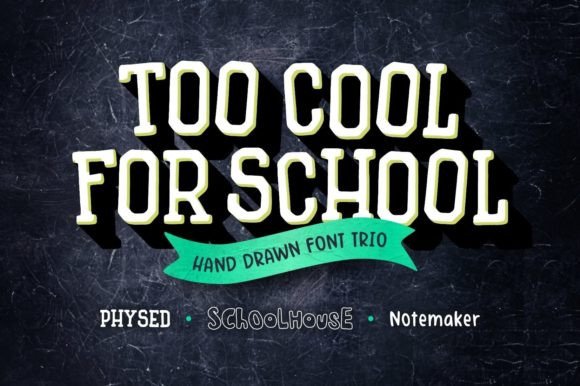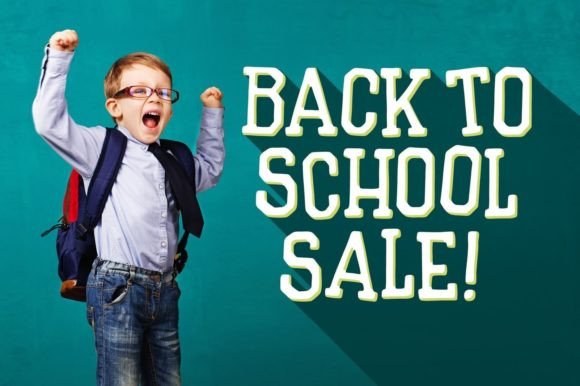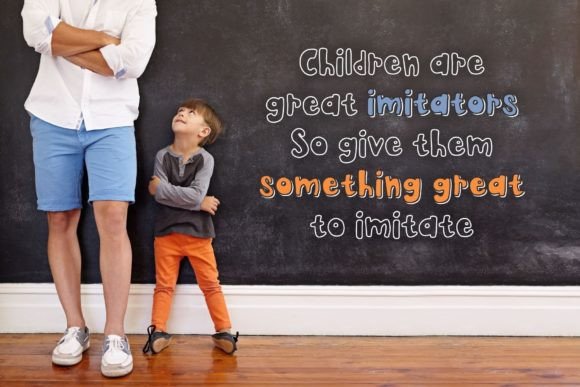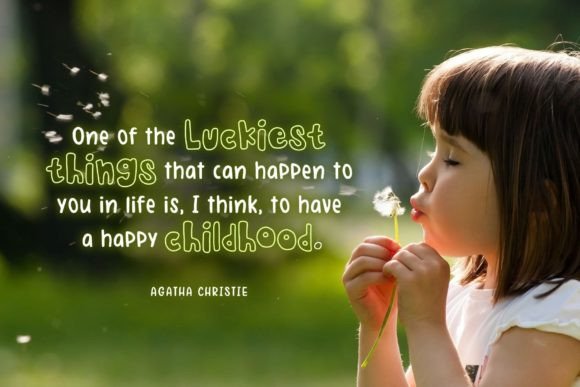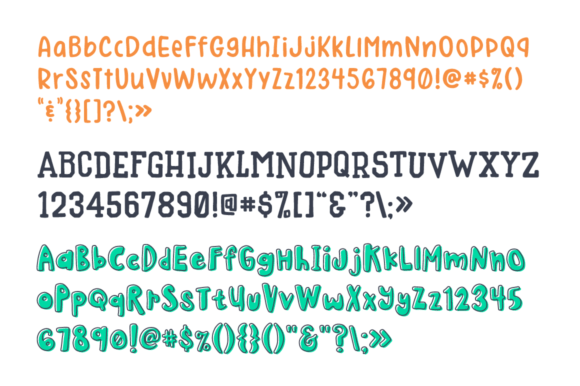
Too Cool for School is a fun and playful font trio (a collegiate slab serif, a super useful sans, and a childlike block font with solid and outline versions). If you’re looking to add some sass to your back-to-school projects, this versatile font will do the trick.
Too Cool for School Trio Font